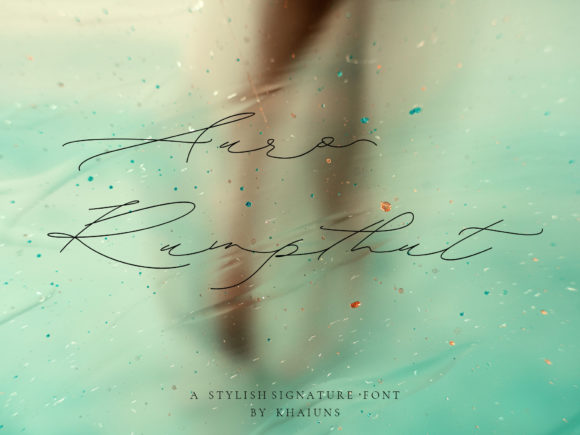
Behold the Auro Rumpthut Font Family - A Symphony of Elegance and Distinction!
In the realm of typography, artistry intertwines with innovation to create masterpieces that transcend the ordinary. Allow us to introduce the Auro Rumpthut Font Family, a sublime creation that embodies the essence of modern calligraphy with a touch of contemporary flair. This captivating script family, meticulously crafted by the renowned designer khaiuns, is poised to transform your creative aspirations into an enchanting journey of self-expression.
Indulge in the artistry of Auro Rumpthut, a font family that dances across the page, reminiscent of a lover's whispered promises. Its graceful curves and flowing lines evoke a sense of intimacy and warmth, inviting the reader into a world where emotions ignite and dreams unfurl. With each letter, Auro Rumpthut breathes life into your words, transforming them into visual poetry that captivates and enchants.
Embrace the versatility of Auro Rumpthut and witness its ability to elevate any project to new heights of sophistication. This versatile font family is meticulously designed to lend an air of elegance to your invitations, branding, social media graphics, and web design. Imagine the awe-inspiring impact as your designs come alive with the allure of Auro Rumpthut, captivating your audience with its inherent charm.
Visualize the joy as your social media posts become canvases of artistic brilliance, captivating your followers with a font that speaks to their hearts. Witness the magic as your invitations exude an aura of heartfelt sincerity, leaving a lasting impression on your guests. And behold the transformation of your branding materials as they radiate professionalism and refinement, establishing a connection with your clientele that transcends words.
Step into the extraordinary with Auro Rumpthut and unlock a realm of creative possibilities. This font family is crafted for those who cherish the art of communication, those who value the power of emotional resonance. With Auro Rumpthut, your words will dance off the page, leaving behind an enchanting trail of allure and inspiration.
Don't succumb to mediocrity; embrace the allure of Auro Rumpthut today and witness the metamorphosis of your creative endeavors. Prepare to be mesmerized as your designs bloom with a charm that transcends the ordinary. As you embark on this journey of self-expression, Auro Rumpthut will faithfully accompany you, transforming your artistic dreams into a tangible reality.